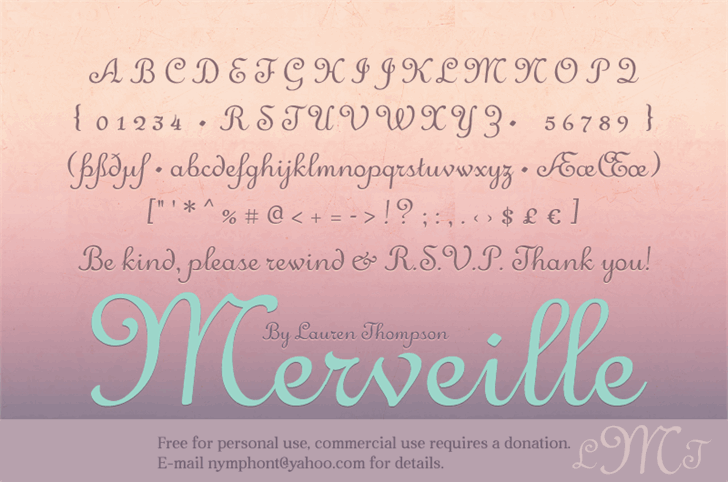
Free Merveille Font
Featuring a free merveille font. This typeface file was found from the amazing source called Font Space. Showcase your designs like a graphic design pro by adding a new touch with this fancy font.